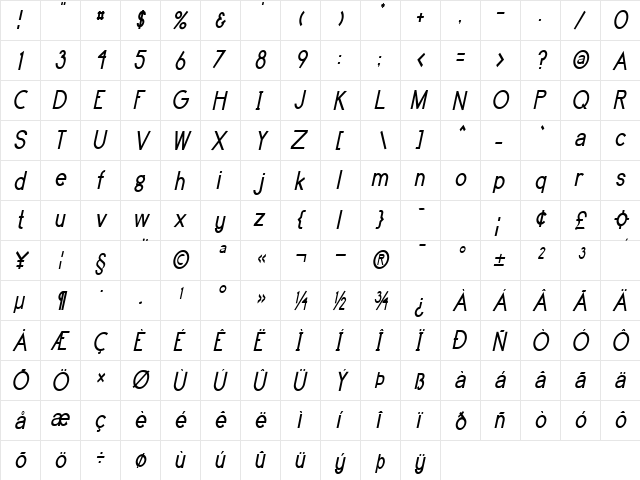
Highball-Condensed Italic
Design Context for Highball-Condensed Typeface
Highball-Condensed takes a measured approach to typography — its balanced proportions and neutral character make it a reliable workhorse for both digital and print work. The slanted form adds forward momentum and visual energy. The condensed width makes it efficient for tight spaces without sacrificing legibility.